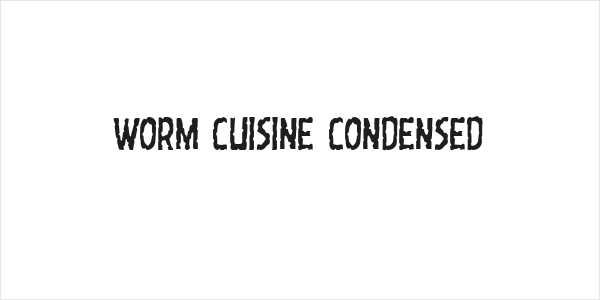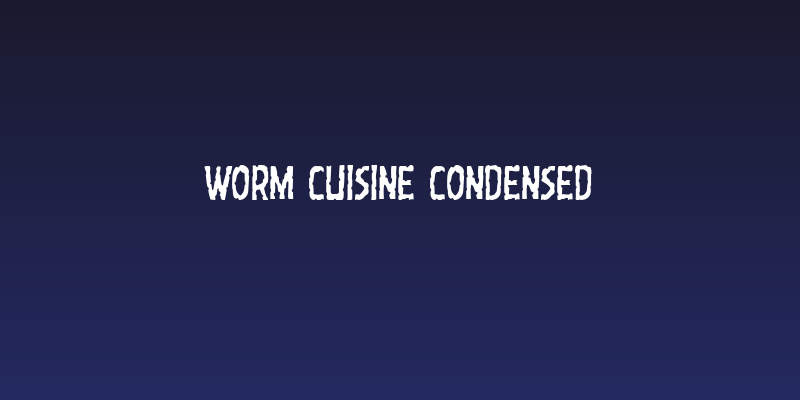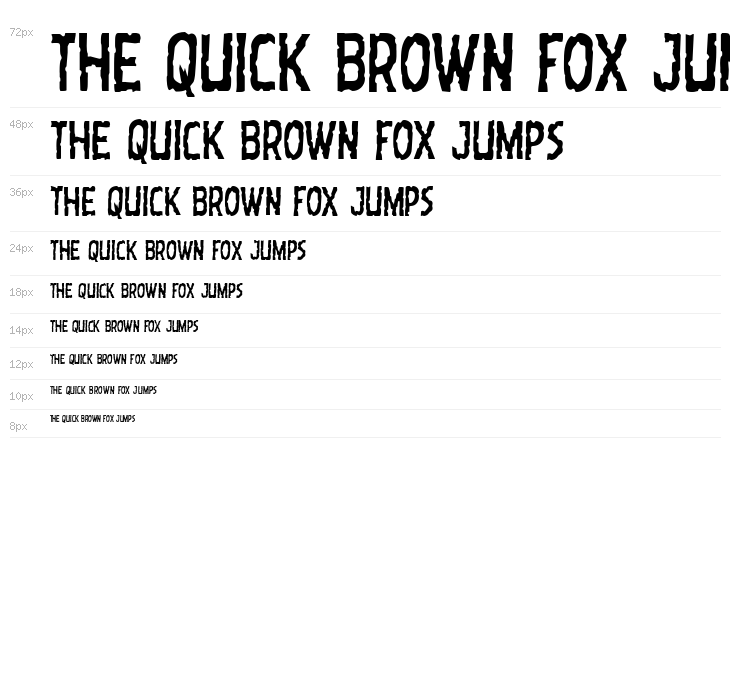
Worm Cuisine Condensed Font
Worm Cuisine Condensed Description
This font features a unique, rugged design with irregular edges and a distressed appearance, giving it a hand-crafted and organic feel. The characters are bold and condensed, creating a strong visual impact. The uppercase and lowercase letters maintain a consistent style, with the numbers and special characters following suit. This font's distinctive texture and boldness make it stand out, suitable for projects that require a touch of edginess and creativity.
| Proposed Projects | Ideal for posters, album covers, branding for edgy products, and creative projects that require a bold statement. |